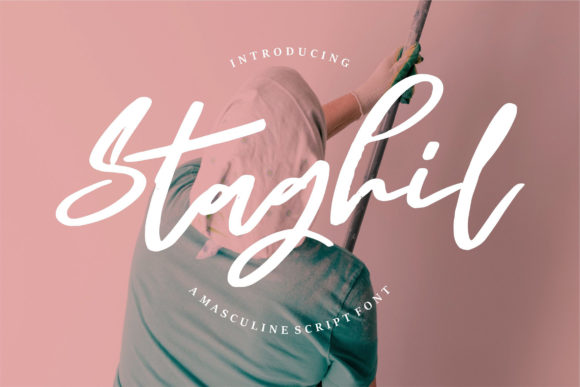
Fancy adding a touch of masculine flair to your designs? Look no further than the captivating Staghil script font. This exquisite creation by Vunira is a masterpiece that will elevate your projects with its distinctive modern calligraphy style.
Dive into the world of Staghil and discover a font that's not just visually stunning but also incredibly versatile. Perfect for crafting eye-catching invitations that leave a lasting impression, Staghil adds a touch of sophistication to greeting cards, ensuring your heartfelt messages are delivered in style.
But Staghil's allure doesn't stop there. Its versatility extends to branding materials, giving your business a unique identity that sets you apart from the crowd. Let your business cards speak volumes with Staghil's elegant script, leaving an indelible mark on potential clients.
For those who love to inspire and motivate, Staghil is your perfect companion. Create inspiring quotes that ignite imaginations and uplift spirits. Whether you're crafting stunning posters or designing social media graphics, Staghil adds a touch of visual magic that captivates audiences.
With Staghil at your disposal, you'll never run out of ways to express yourself. This extraordinary font breathes new life into your designs, transforming ordinary words into captivating works of art. Experience the power of Staghil today and let your creativity soar!